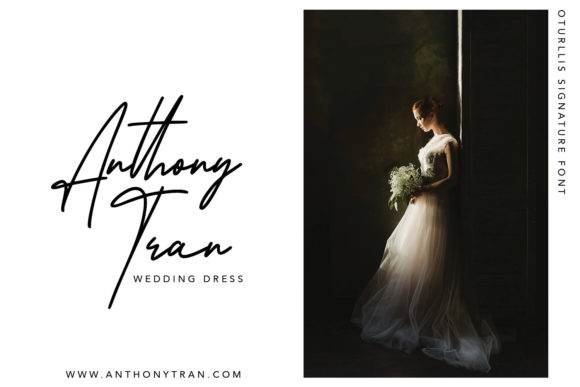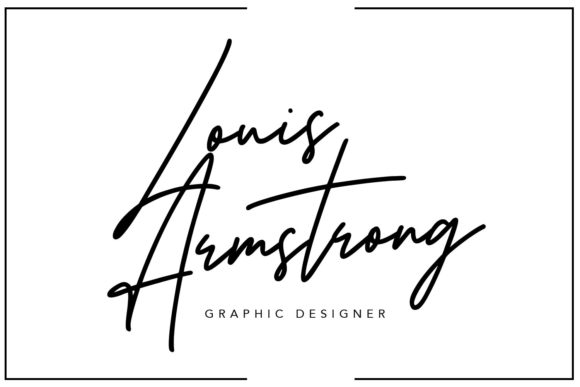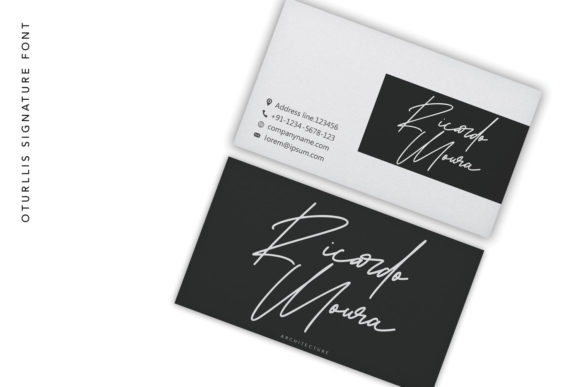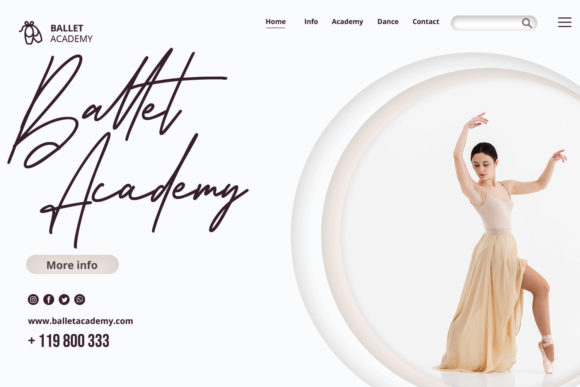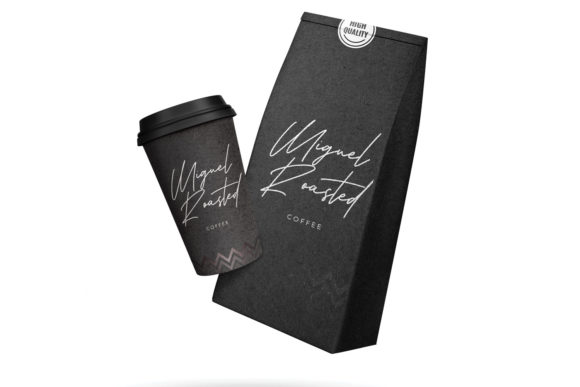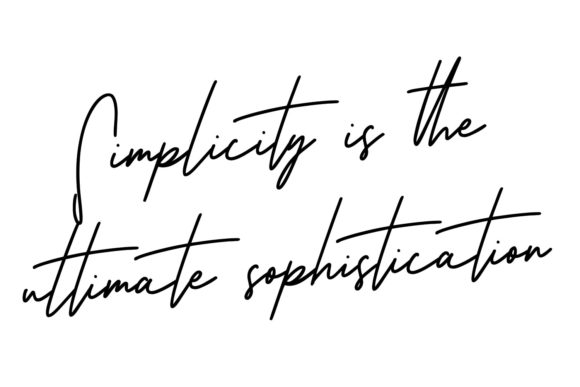
Introduction to Oturllis Font
Give your designs an authentic handcrafted feel.
Oturllis is perfectly suited for signatures, stationery art, logos, typography quotes, magazine or book covers, website headers, clothing, branding, packaging design and more .
Key Features of Oturllis Font
Why Choose Oturllis Font?
Oturllis Font offers exceptional quality and versatility, making it a valuable addition to your design toolkit. Whether you’re creating for personal projects or commercial use, Oturllis Font delivers professional results.